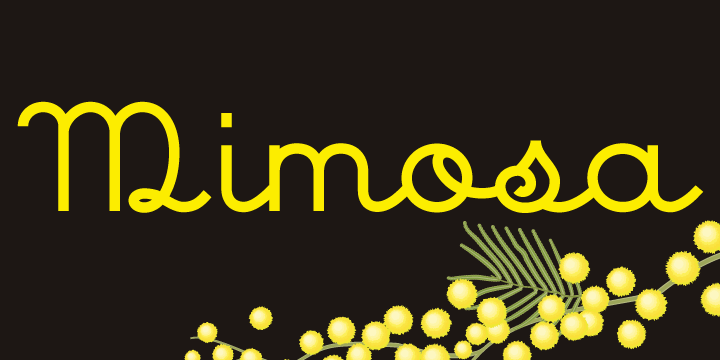
The Mimosa Font Free Download is ideal for wedding invitations, luxury branding, quotes, and social media graphics, offering a sophisticated, handwritten charm.
This font is exciting because its elegant, connecting vertical script, inspired by 1920s French toiletries packaging, adds a timeless, decorative flair to any design.
The Mimosa family includes Regular and Hearts styles, with the latter featuring cute heart accents over letters like i and j.
Transform your projects with the Mimosa Font Free Download, a handwritten script typeface designed by Daniel Pelavin and published by Pelavin Fonts. Inspired by the packaging of “Moulinard Jeune” from the 1920s, Mimosa features a mono-weight, vertical script with 240+ glyphs, including decorative uppercase and regular lowercase letters. Perfect for creating elegant headlines, logos, or invitations, this font’s lyrical, connected style exudes vintage sophistication. The Mimosa Hearts variant adds playful heart details, ideal for romantic or whimsical designs. It supports multiple formats (OTF, TTF, WOFF) and includes accent characters for broad compatibility. As 2025 design trends favor ornate, nostalgic typography, downloading Mimosa Font Free Download ensures your work stands out. Test it today to explore its graceful potential, and consider purchasing for commercial use to fully leverage its charm.